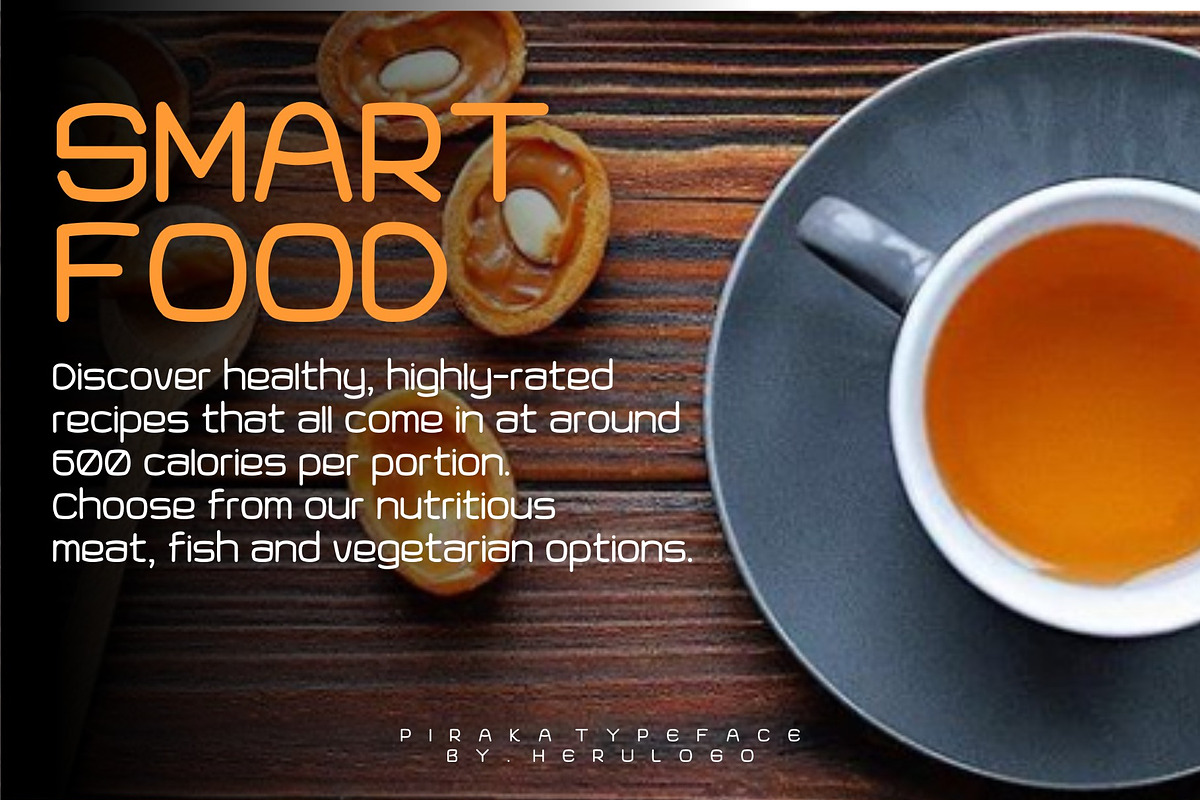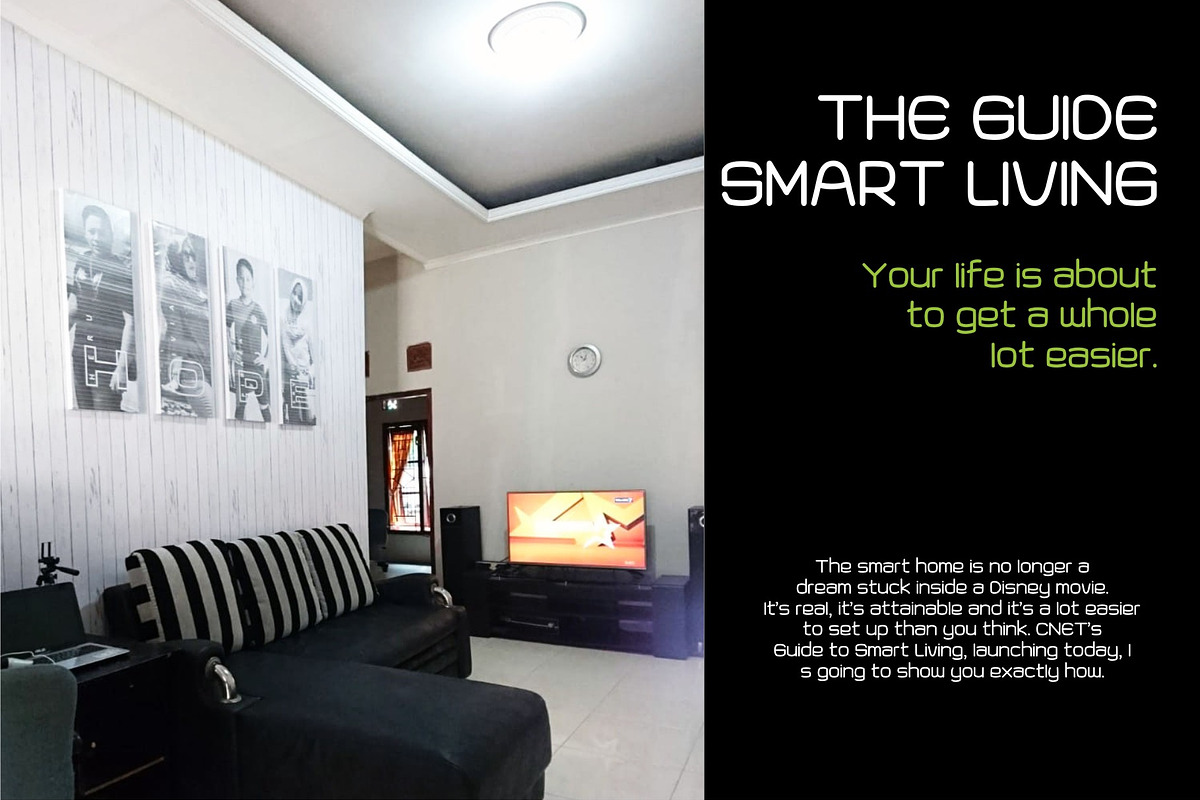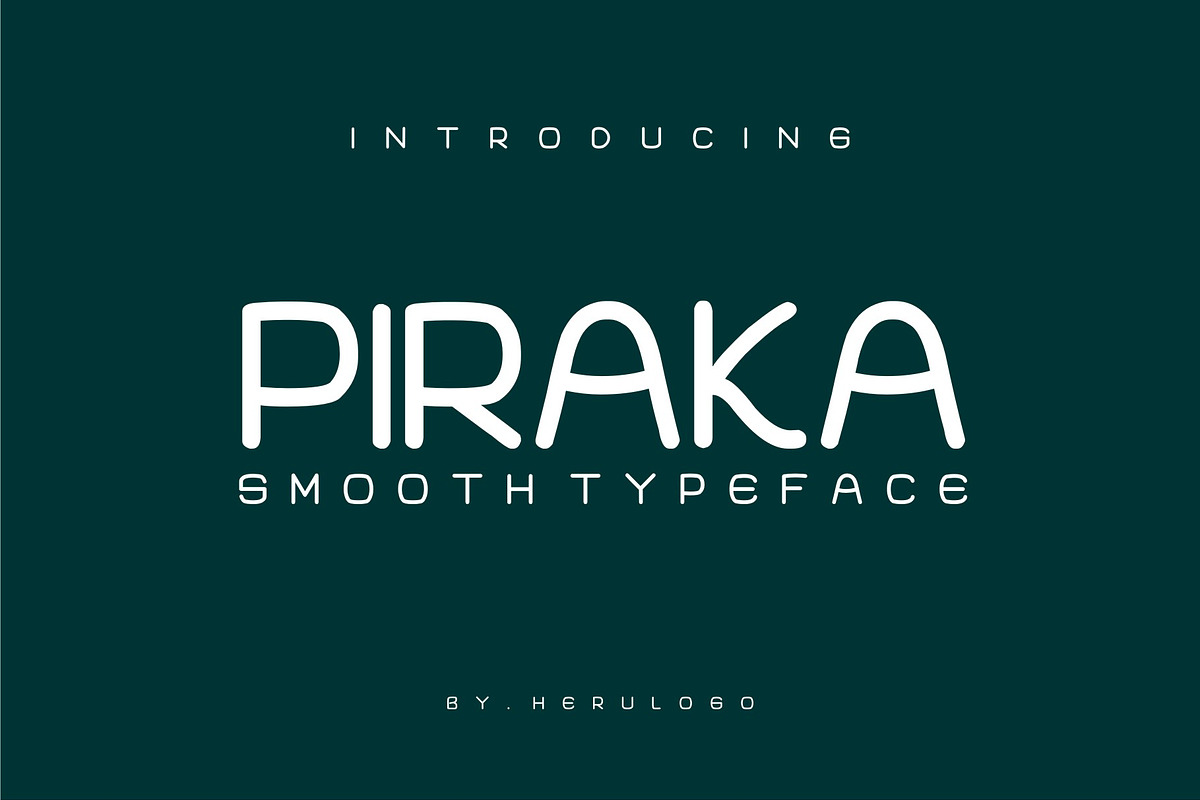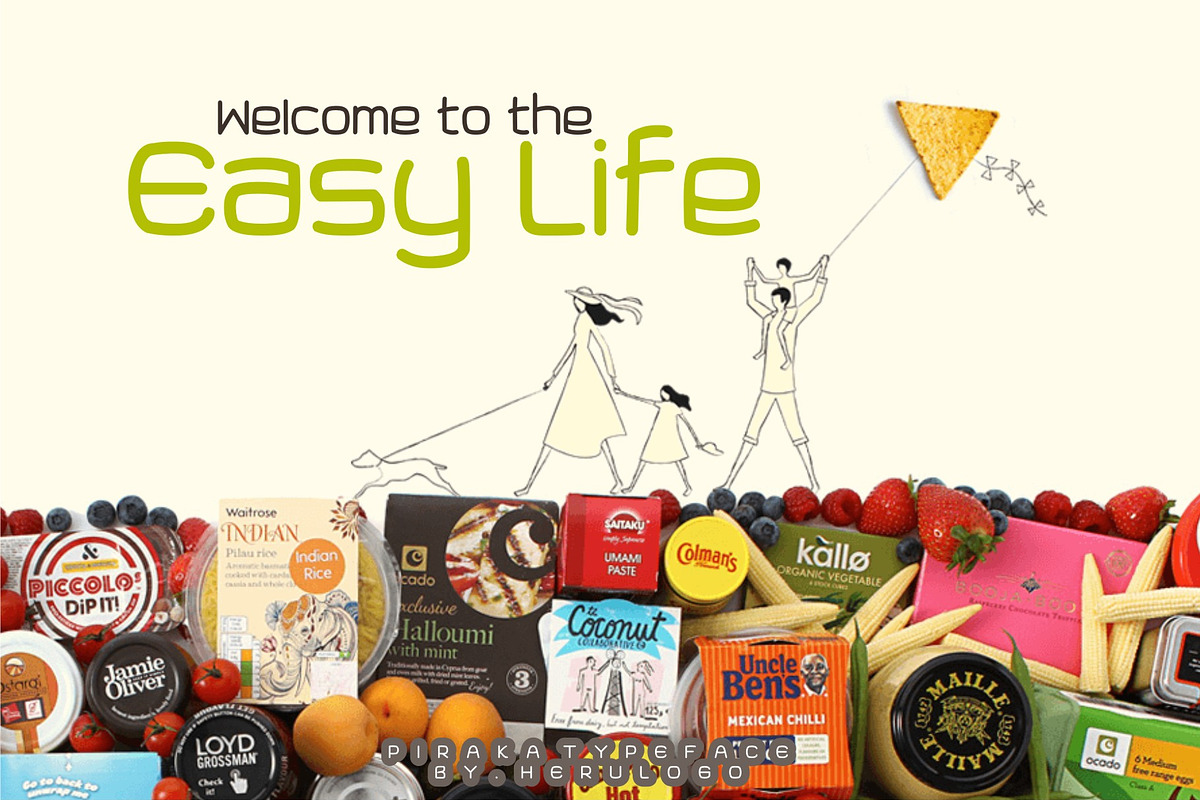
PIRAKA SMOOTH TYPEFACE
This cute font has very smooth rounded letters and really stands out because of it’s symmetrical letters. Piraka font is a great font for when you are creating unique design that needs to feel different.
Why PIRAKA SMOOTH TYPEFACE is worth a look
PIRAKA SMOOTH TYPEFACE by herulogo fits naturally into Branding, posters, packaging, typography.